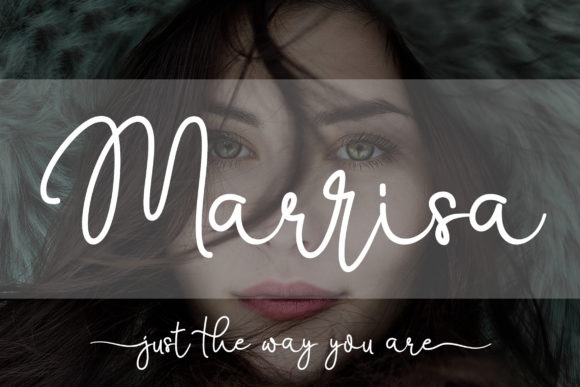
Journey into the world of Marrisa Script Font, an enchanting creation by aldedesign. Step into a realm where your designs will dance with elegance and charm, captivating your audience with its heartfelt authenticity. Marrisa Script is not just a font, it's an artistic expression that breathes life into your creations.
Unlock your imagination and transform your designs into captivating works of art with Marrisa Script. Its fluid strokes and playful characters will add a touch of whimsy and uniqueness to your projects, making them stand out from the crowd. Craft beautiful logos that exude a timeless charm, design eye-catching posters that speak to the heart, or create stunning invitations that evoke a sense of wonder and excitement.
Indulge in the versatility of Marrisa Script, a font family that adapts seamlessly to any design concept. Whether you're designing a wedding invitation, a heartfelt letter, or crafting a magical social media post, Marrisa Script effortlessly elevates your words, adding a touch of sophistication and finesse. Its graceful curves and delicate details will transform your designs into masterpieces that leave a lasting impression.
Marrisa Script, a gift from the world of typography, is a font that speaks to the soul. Its graceful flow and natural charm will add a touch of enchantment to your creative endeavors, capturing hearts and leaving a trail of beauty in its wake. Embrace the power of Marrisa Script and unlock a world of endless design possibilities.